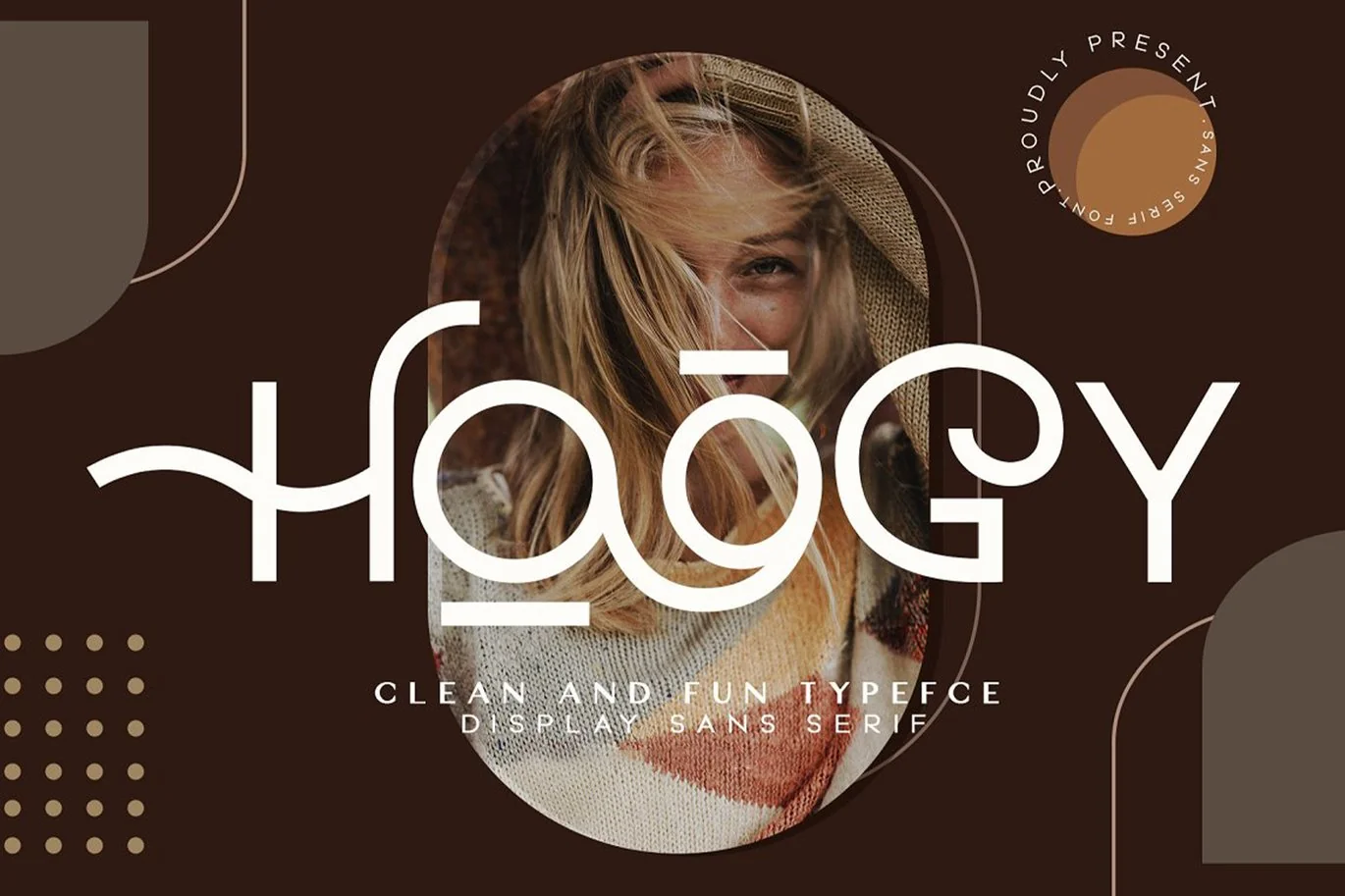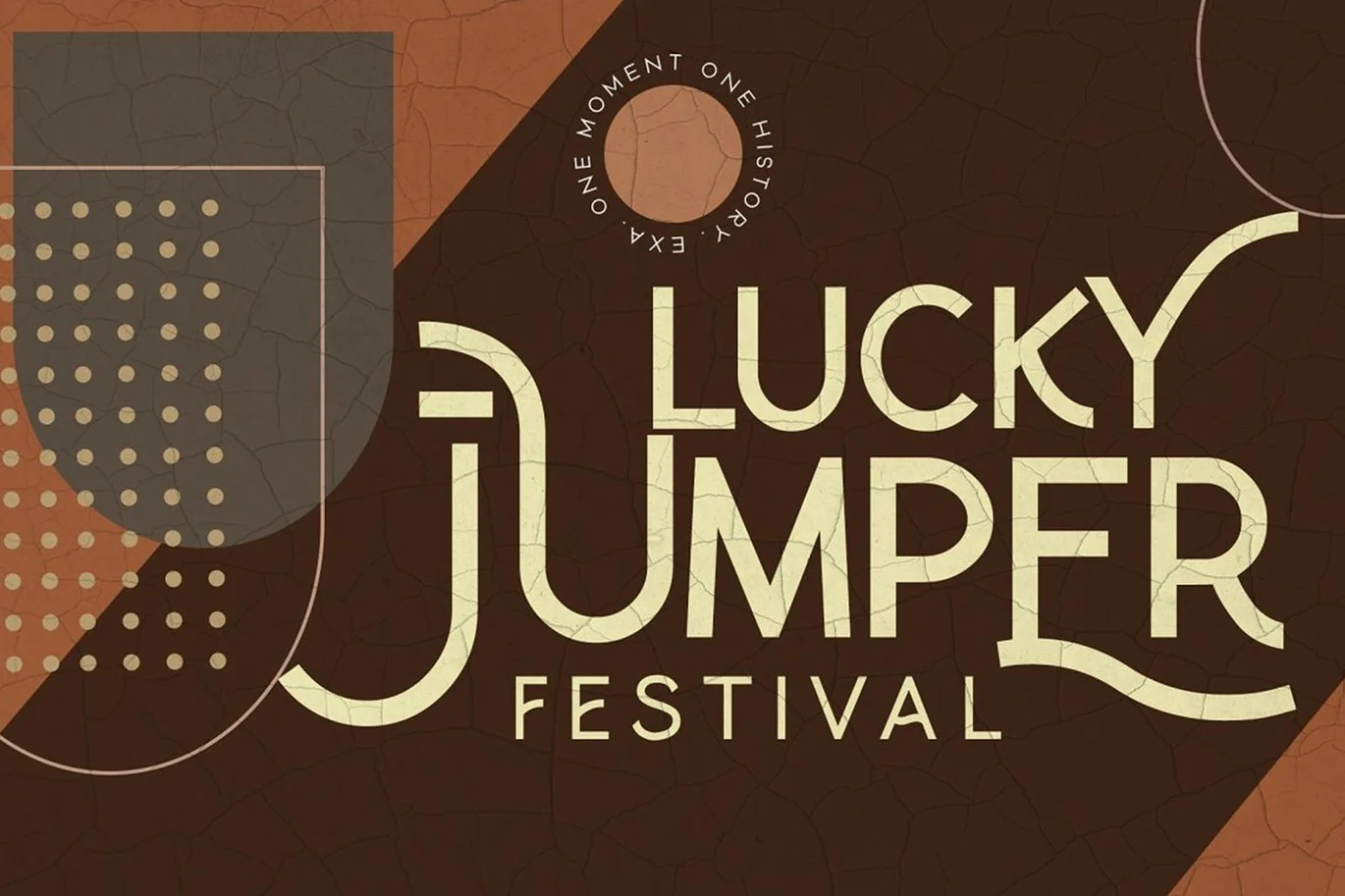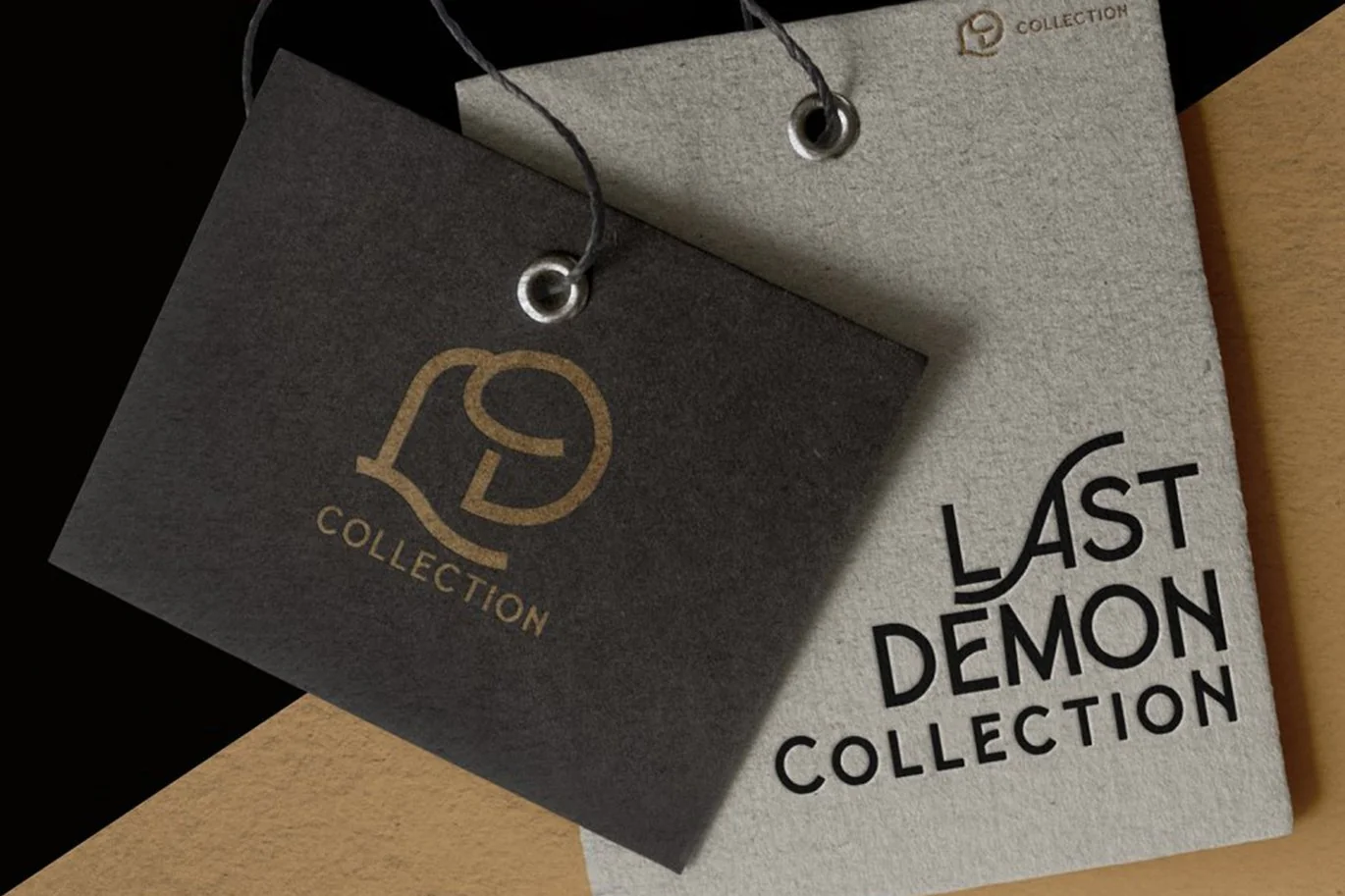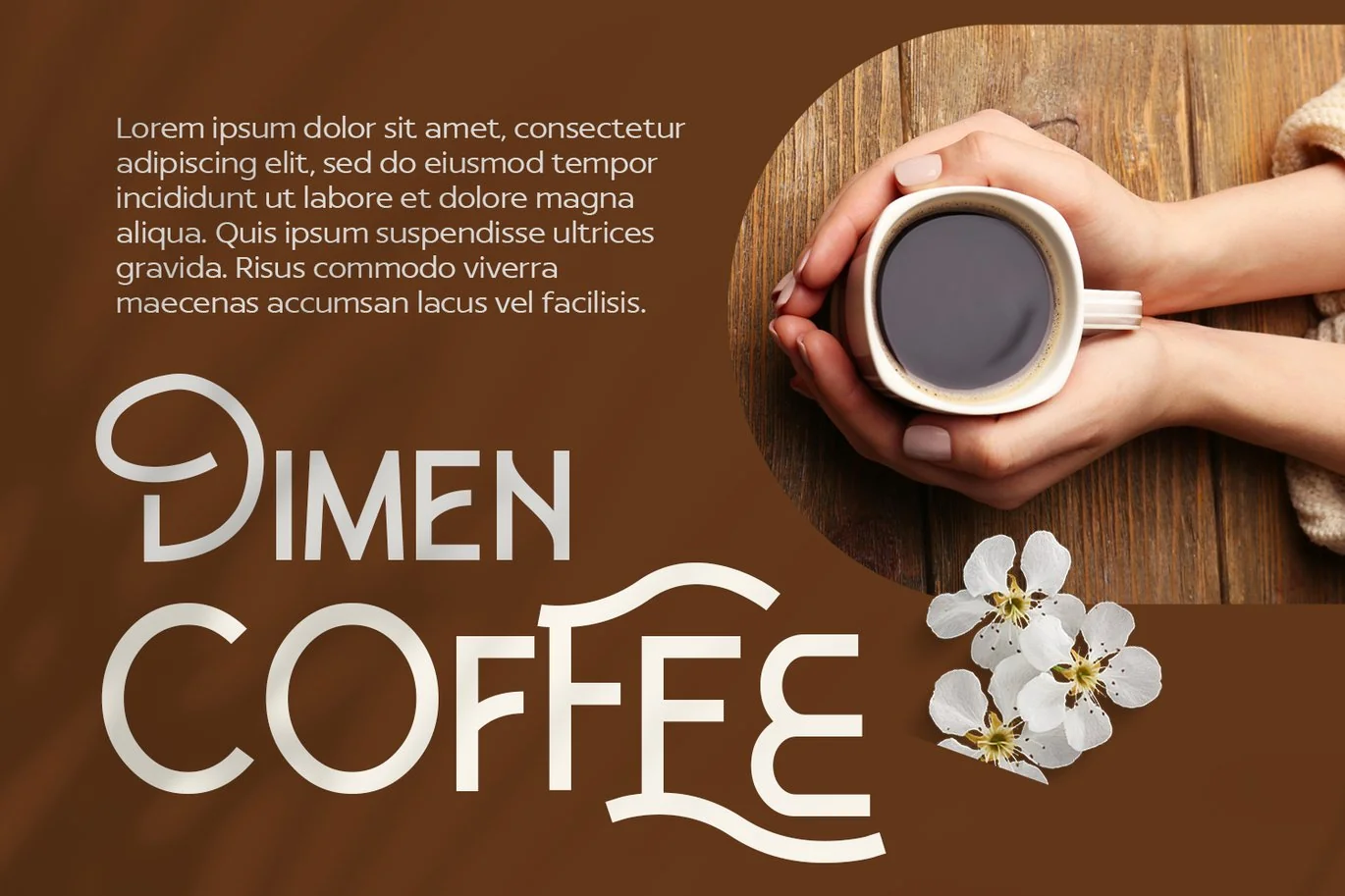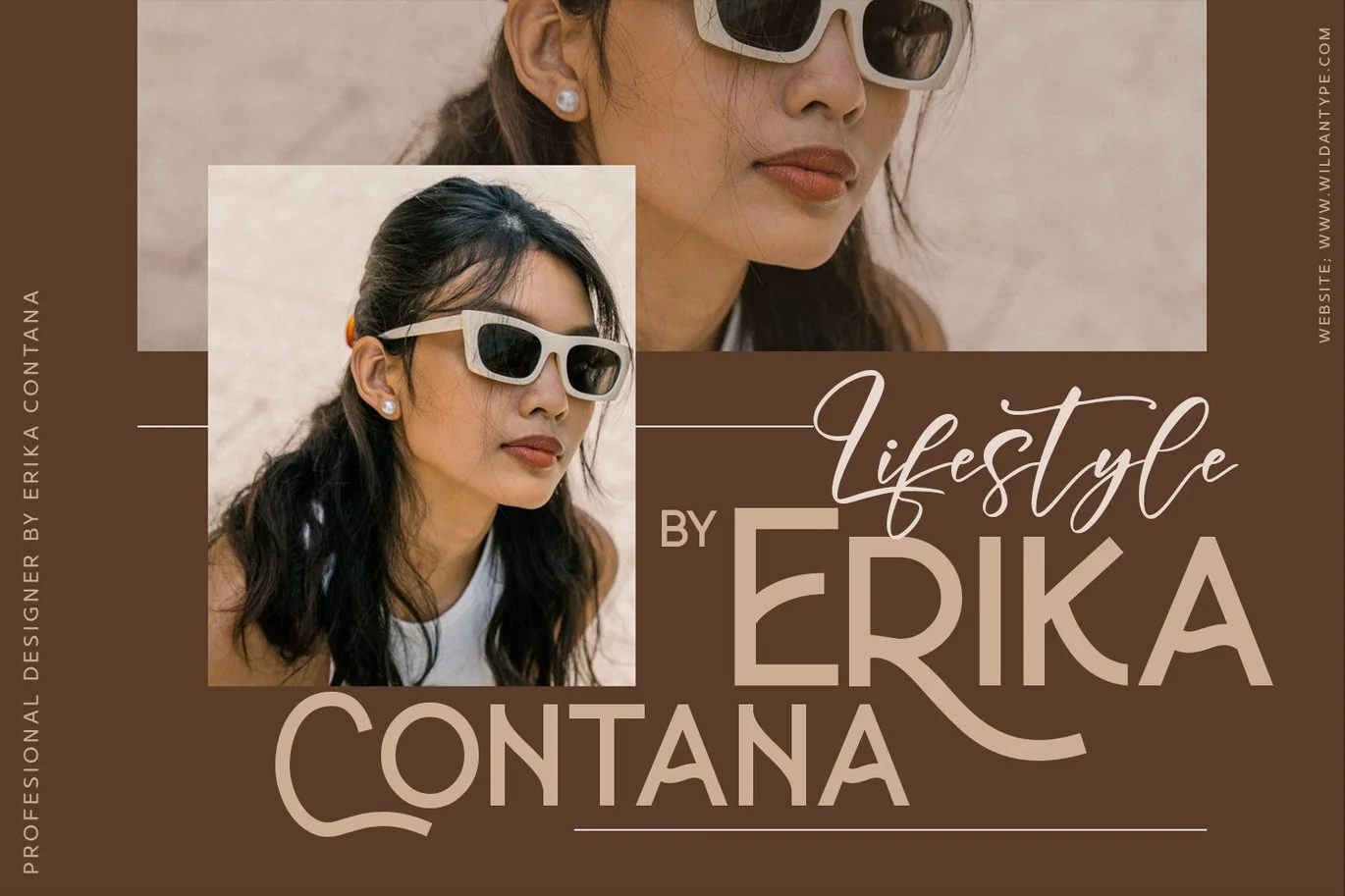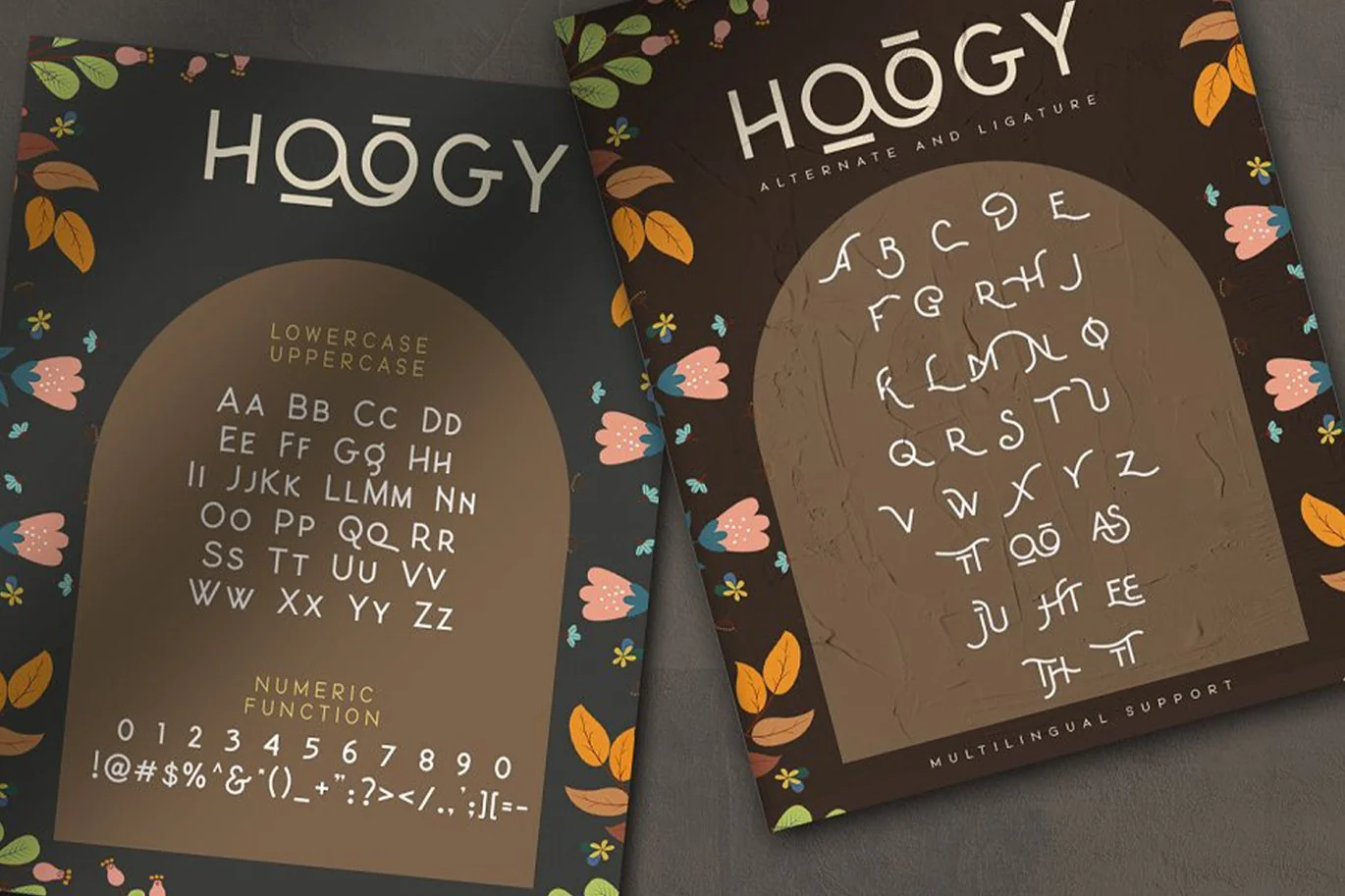
Hoogy – decorative font
Hoogy is a cool and modern sans serif font. It is PUA encoded which means you can access all glyphs and swashes with ease!
Hoogy is also included full set (oblique and regular) of:
Uppercase and lowercase letters
Multilingual characters
Numerals
Open Type Feature